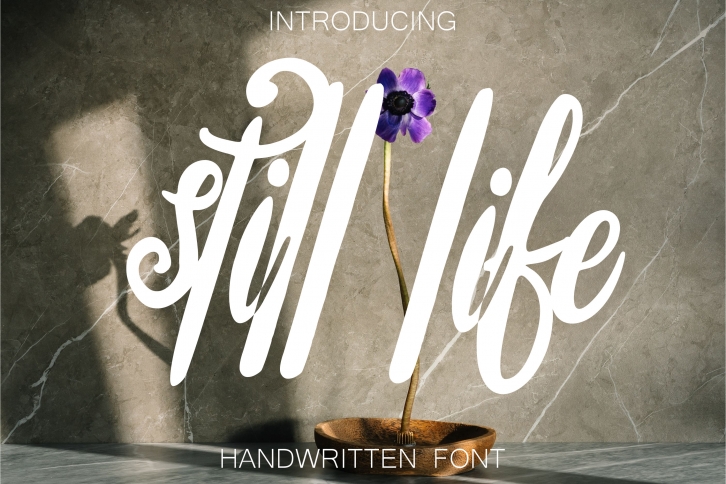
Still Life is a trendy and paint brushed handwritten font. It works great on crafting, t-shirt designs, posters, digital designs, presentations, book covers, and much more. Add it to your most creative ideas, and notice how it makes them come alive!